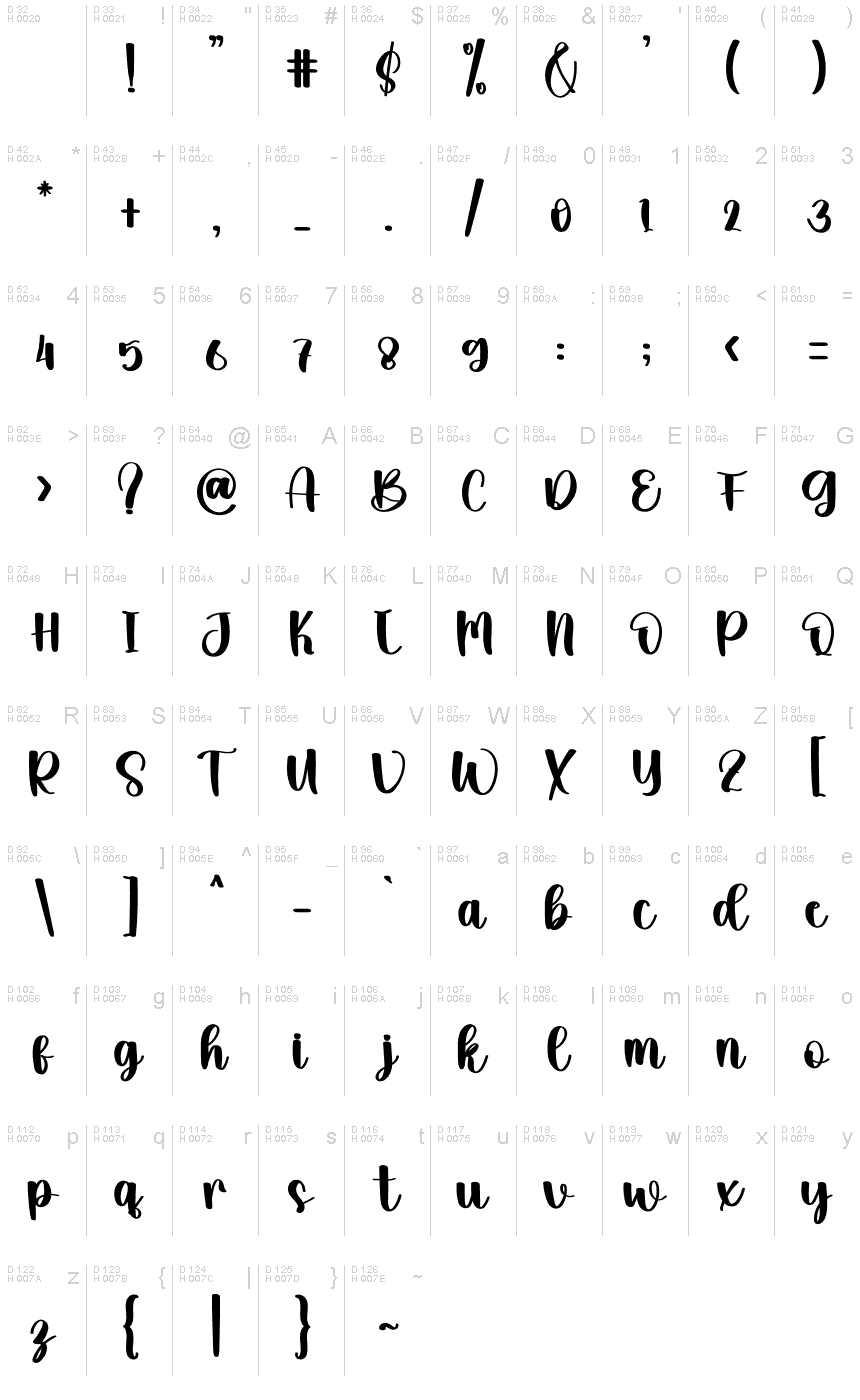
Spiritual
Spiritual, a creation by Inermedia Studio, is a smooth brush font with a semi-bold weight. Its elegant strokes and fluid curves make it perfect for various creative projects.
For invitations and posters, this font adds a touch of sophistication and charm. In digital designs, Spiritual brings warmth and personality to websites or social media graphics. With its smooth brush style, this font suits modern calligraphy pieces, enhancing wedding invitations or personalized stationery.
Whether used for branding or artistic endeavors, Spiritual is an exquisite choice that adds elegance to any project with its semi-bold flair.